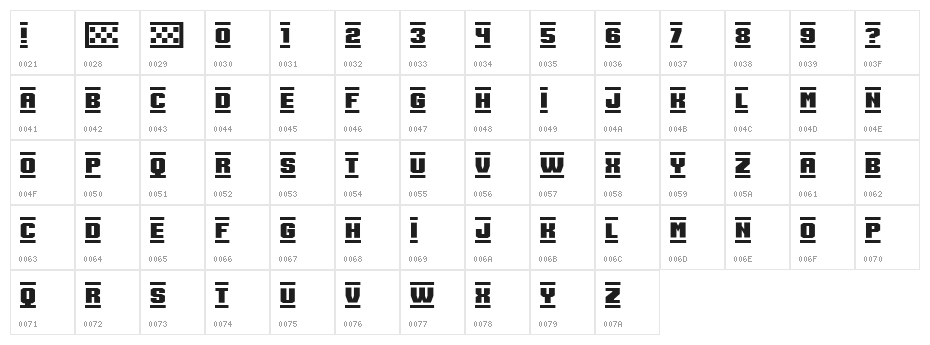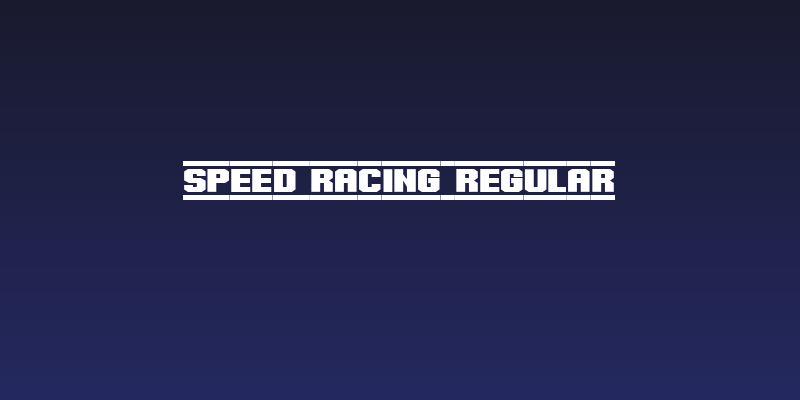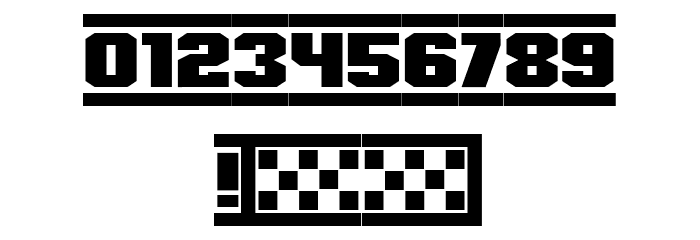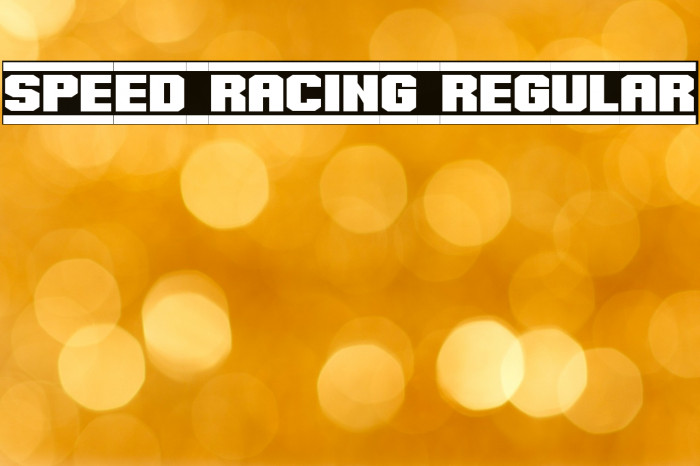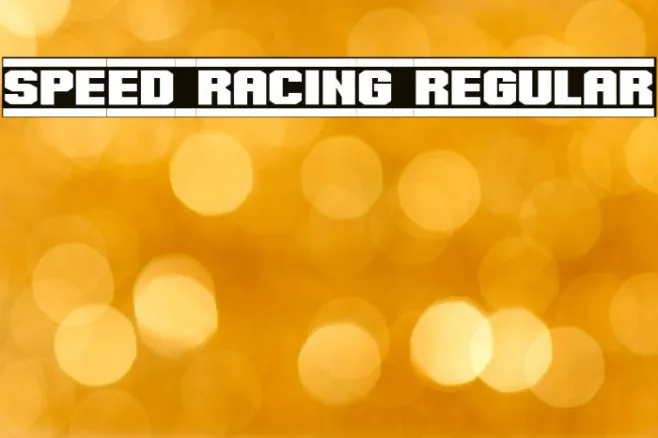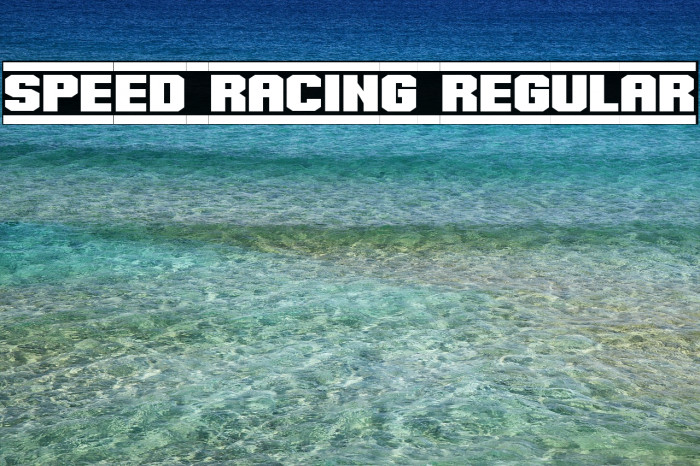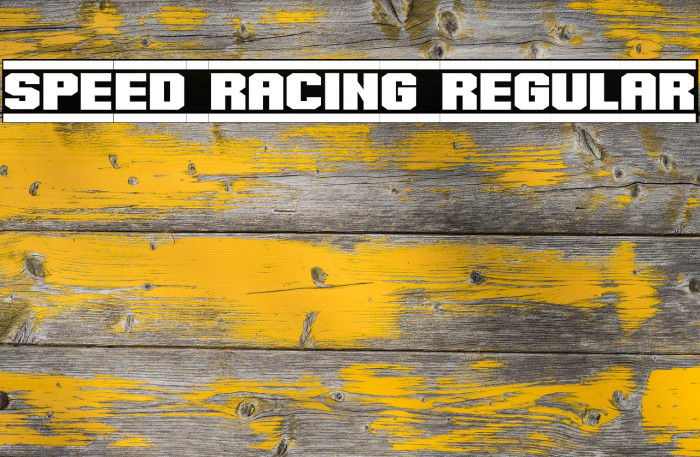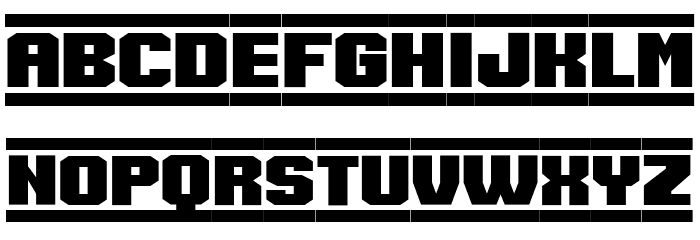
Speed Racing Regular Font
Speed Racing Regular Description
This bold and striking font features a strong, geometric design with a distinctly modern and industrial feel. The characters are constructed with thick, uniform strokes that create a sense of power and speed, reminiscent of racing and automotive themes. The uppercase letters are particularly bold, with sharp angles and a blocky appearance that conveys strength and stability. The numbers and special characters maintain this robust style, ensuring consistency across all elements. The font's design is ideal for projects that require a bold statement, such as sports branding, automotive advertising, or any context where a sense of speed and dynamism is desired.